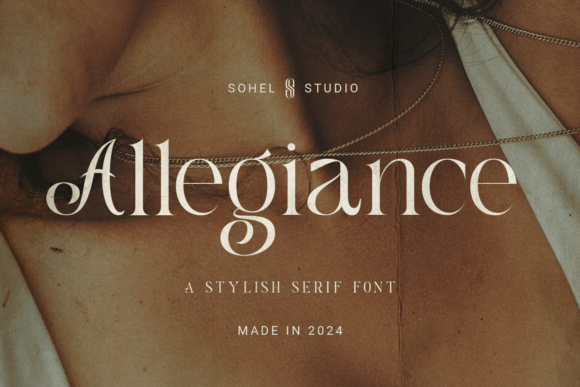
Introducing Allegiance Font: The Perfect Blend of Modern Elegance and Classic Retro Charm
In the world of typography, fonts play a crucial role in defining the aesthetic and tone of a design project. With the numerous options available, finding the perfect font that combines style, elegance, and uniqueness can be a daunting task. However, if you’re looking for a font that beautifully marries contemporary style with a touch of classic retro charm, look no further than Allegiance Font. In this article, we’ll explore the features, benefits, and uses of Allegiance Font, and why it’s an ideal choice for designers seeking to elevate their projects with sophisticated aesthetics.
What is Allegiance Font?
Allegiance Font is a thin, modern, elegant serif font that boasts a unique fusion of styles. Its sleek and refined strokes make it perfect for a wide range of design applications, from premium corporate branding and cinematic posters to art deco-inspired invitations and college materials. With influences from timeless serif fonts and the modern minimalism of fonts like Helvetica and Futura, Allegiance stands out with its distinctive alternates and subtle retro touch.
Key Features of Allegiance Font
- Unique Fusion of Styles: Allegiance Font combines the elegance of classic serif fonts with the simplicity of modern sans-serif fonts, creating a truly unique typographic solution.
- Distinctive Alternates: The font features distinctive alternates that add versatility and flair to your typography, allowing you to experiment with different styles and aesthetics.
- Thin and Elegant Strokes: Allegiance Font boasts thin, graceful lines that exude sophistication and elegance, making it perfect for high-end projects that require a premium look.
- Subtle Retro Touch: The font’s subtle retro touch evokes a sense of nostalgia while maintaining a contemporary edge, making it suitable for a wide range of design applications.
Benefits of Using Allegiance Font
Allegiance Font offers numerous benefits for designers seeking to elevate their projects with sophisticated aesthetics. Some of the key benefits include:
- Elegance and Sophistication: Allegiance Font adds an element of elegance and sophistication to your designs, making it perfect for high-end projects that require a premium look.
- Versatility: The font’s versatility makes it suitable for a wide range of design applications, from love-themed designs and funky event materials to nature-inspired graphics and beach-inspired projects.
- Cinematic Quality: Allegiance Font’s cinematic quality ensures that your designs are always eye-catching and stylish, making it perfect for cinematic posters, movie titles, and other video-related projects.
- Unique and Timeless Designs: With Allegiance Font, you can create unique and timeless designs that combine modern minimalism with retro elegance, making it an ideal choice for designers seeking to create beautiful and stylish typography.
Design Applications of Allegiance Font
Allegiance Font is suitable for a wide range of design applications, including:
- Premium Corporate Branding: The font’s sleek and refined strokes make it perfect for premium corporate branding, logos, and business cards.
- Cinematic Posters: Allegiance Font’s cinematic quality makes it ideal for cinematic posters, movie titles, and other video-related projects.
- Art Deco-Inspired Invitations: The font’s subtle retro touch and elegant strokes make it perfect for art deco-inspired invitations, wedding cards, and other formal events.
- College Materials: Allegiance Font is suitable for college materials, such as brochures, flyers, and posters, due to its elegant and sophisticated aesthetic.
- Love-Themed Designs: The font’s elegant strokes and distinctive alternates make it perfect for love-themed designs, such as Valentine’s Day cards and wedding invitations.
- Beach-Inspired Projects: Allegiance Font’s subtle retro touch and modern elegance make it suitable for beach-inspired projects, such as summer-themed posters and tropical getaway brochures.
Why Choose Allegiance Font?
Allegiance Font is an ideal choice for designers seeking to elevate their projects with sophisticated aesthetics. Here are some reasons why you should choose Allegiance Font:
- Unique and Timeless Designs: Allegiance Font allows you to create unique and timeless designs that combine modern minimalism with retro elegance.
- Elegance and Sophistication: The font’s elegant strokes and distinctive alternates add an element of elegance and sophistication to your designs.
- Versatility: Allegiance Font is suitable for a wide range of design applications, making it a versatile and practical choice for designers.
- Cinematic Quality: The font’s cinematic quality ensures that your designs are always eye-catching and stylish.
In conclusion, Allegiance Font is a thin, modern, elegant serif font that beautifully marries contemporary style with a touch of classic retro charm. Its unique fusion of styles, distinctive alternates, and subtle retro touch make it an ideal choice for designers seeking to elevate their projects with sophisticated aesthetics. With its versatility, elegance, and cinematic quality, Allegiance Font is perfect for a wide range of design applications, from premium corporate branding and cinematic posters to art deco-inspired invitations and college materials. Experience the charm and elegance of Allegiance Font and take your designs to the next level.